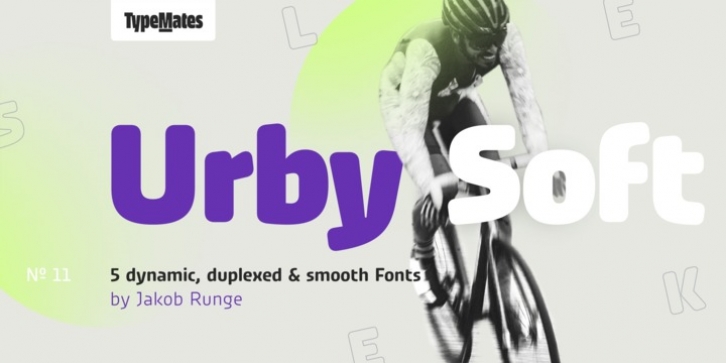
Urby Soft's rounded corners are complemented by Urby's sharp-edged character and together they make up the Urby Collection. Although each has their own look, both families and their five weights each can be used interchangeably.
The different weights and styles share identical character widths, allowing you to change the weight or style of text without having to worry about text reflow - ideal for interface design. And despite being eye catching at display sizes, Urby Soft works surprisingly well for short text.
Extremely wide apertures, like in a, e or s, and organic stroke endings (v, x) bring playfulness to Urby Soft's geometric construction and reduced shapes (t, f, 4) and quirky details underscore Urby Soft's unique character. Its rich character set supports most Latin languages and provides helpful dingbats and geometric shapes.